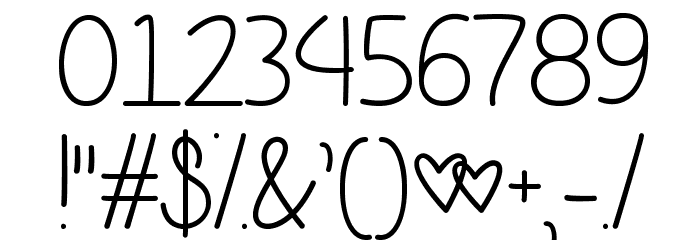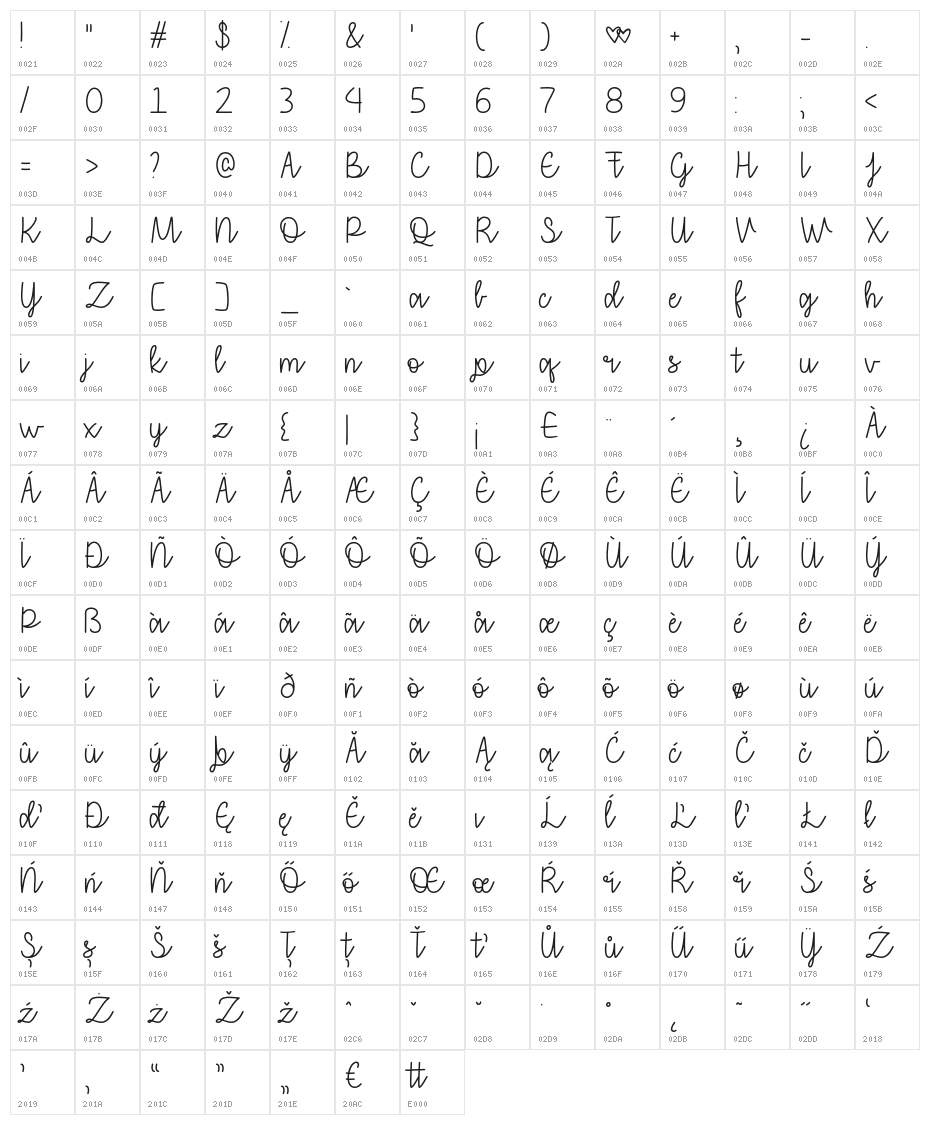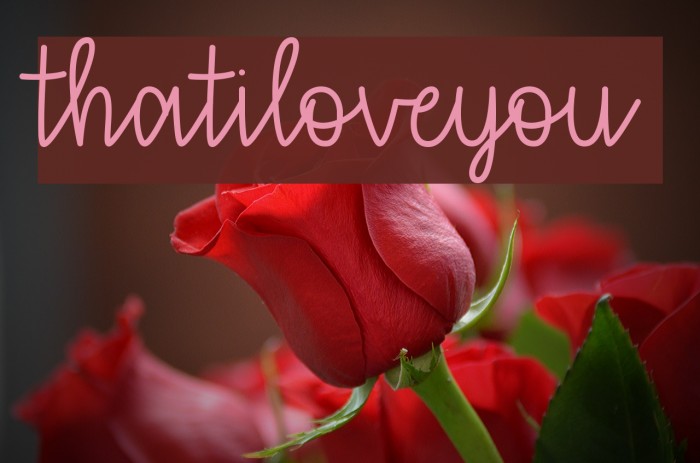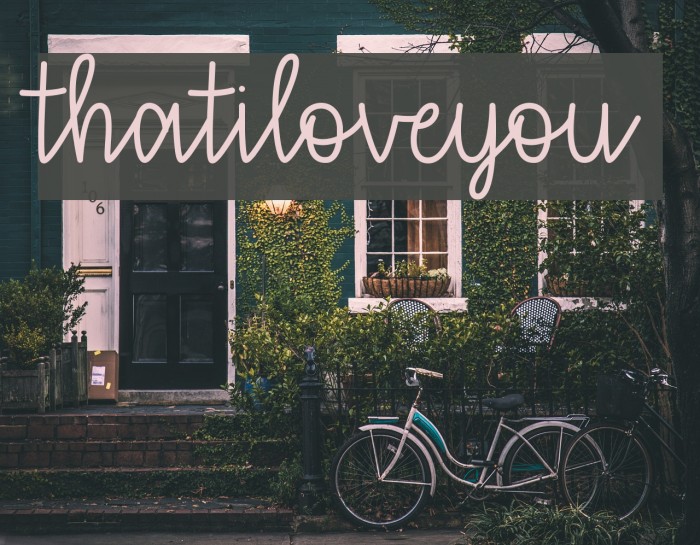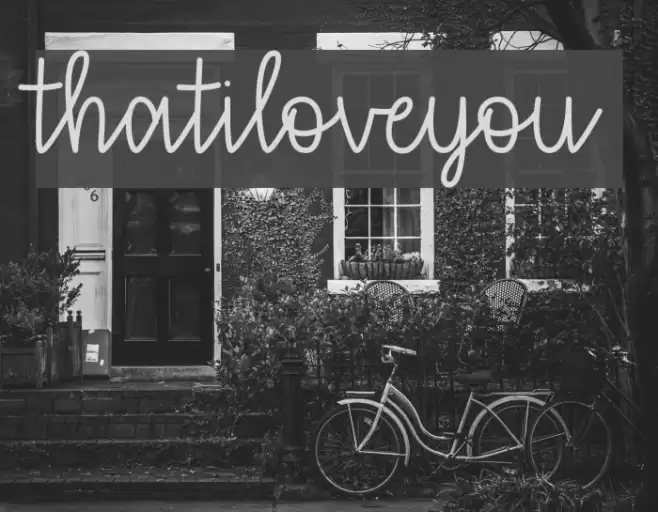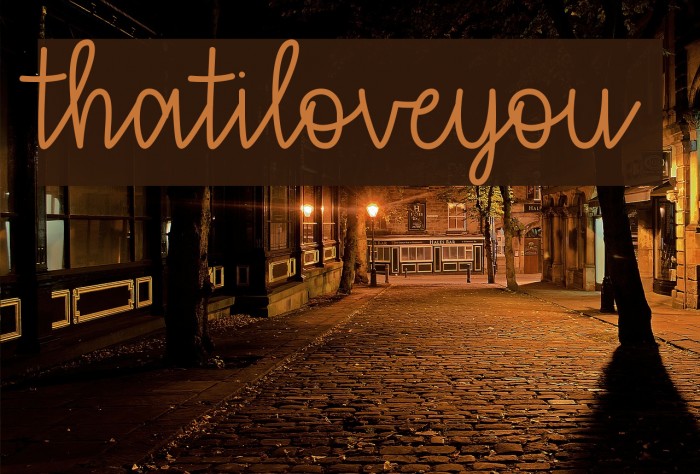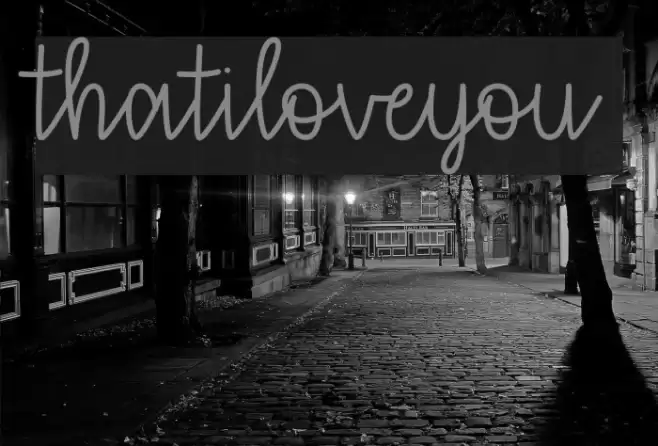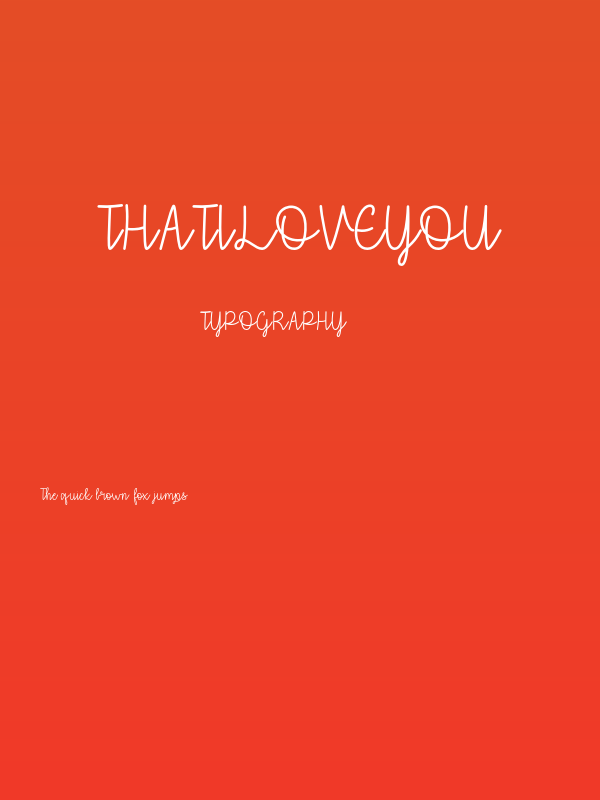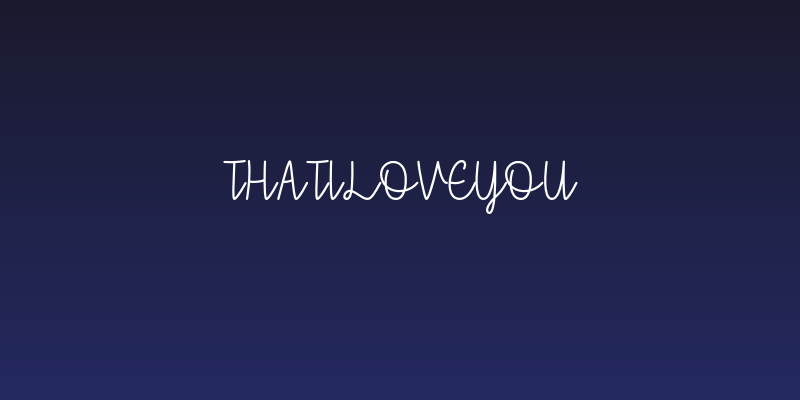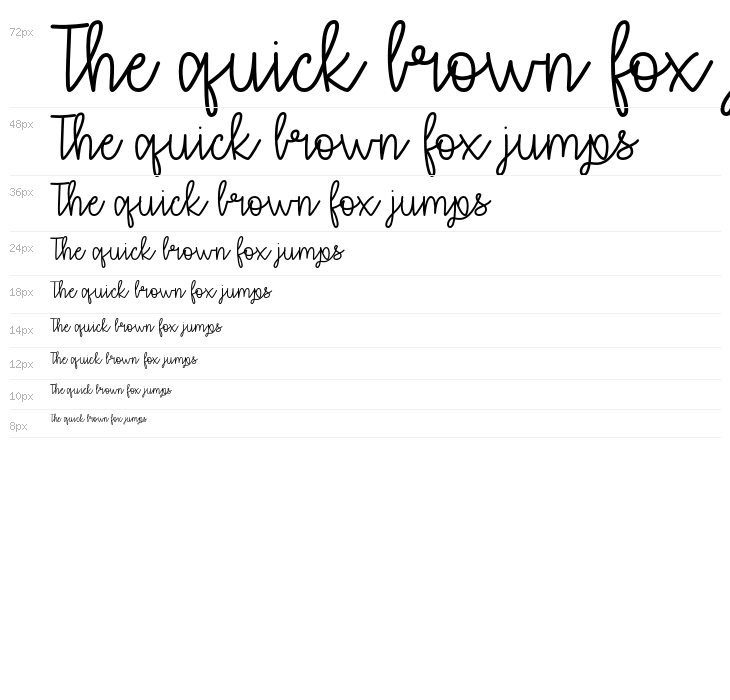
thatiloveyou Font
thatiloveyou Description
This font features a playful and casual handwritten style, characterized by smooth, flowing lines and a consistent stroke width. The uppercase letters are slightly taller and more elongated, while the lowercase letters maintain a balanced and harmonious appearance. The numerals are clear and legible, matching the overall aesthetic of the alphabet. Special characters are creatively designed, adding a touch of whimsy to the font. The overall look is friendly and approachable, making it suitable for a variety of informal and creative projects.
Overall StyleCasual
Use CaseHeadlines, Invitations, Personal projects
Proposed ProjectsIdeal for greeting cards, invitations, personal branding, and social media graphics.